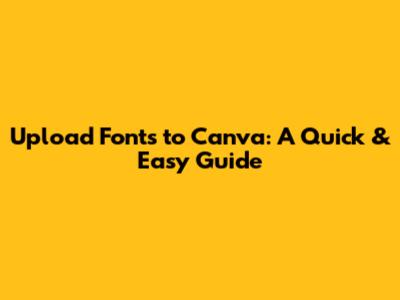
- Branding Consistency: Keeping your brand consistent is super important. Using the same fonts across all your materials – from your logo to your social media posts – helps people recognize your brand instantly. Uploading your brand fonts to Canva ensures everything stays on-brand.
- Unique Designs: Stand out from the crowd! Canva's built-in fonts are used by millions of people. By uploading your own fonts, you can create designs that are truly unique and eye-catching. Think about it: your designs will have that special something that sets them apart.
- Access to a Wider Variety: The internet is overflowing with amazing fonts, both free and paid. Uploading fonts to Canva allows you to tap into this massive resource and use fonts that aren't available in Canva's library. It's like unlocking a secret level of design possibilities.
- Personal Projects: Maybe you’re working on a personal project, like invitations for a wedding or a birthday card. Using a special font can add a personal touch and make your project even more meaningful. It’s all about adding that extra layer of you to your creations.
- Font Not Appearing in the Font List:
- Refresh the Page: Sometimes Canva just needs a little nudge. Refreshing the page often fixes the issue.
- Check the "Uploaded fonts" Section: Make sure you're looking in the correct section of the font dropdown menu. Your uploaded fonts will be listed under "Uploaded fonts."
- Restart Canva: If all else fails, try closing and reopening Canva. This can help clear any temporary glitches.
- Font Looks Different Than Expected:
- Check for Font Variations: Some fonts come with different variations (e.g., bold, italic, light). Make sure you're using the correct variation.
- Adjust Line Height and Letter Spacing: Sometimes the default line height and letter spacing in Canva don't look great with certain fonts. Play around with these settings to fine-tune the appearance.
- Consider Your Brand: Your fonts should reflect your brand's personality and style. If your brand is modern and minimalist, choose a clean, sans-serif font. If your brand is more traditional, opt for a classic serif font.
- Think About Readability: Your font should be easy to read, especially for body text. Avoid overly decorative or complicated fonts that can strain the eyes.
- Use Font Pairings: Combining two or three fonts can create a visually appealing design. A common technique is to pair a serif font for headings with a sans-serif font for body text.